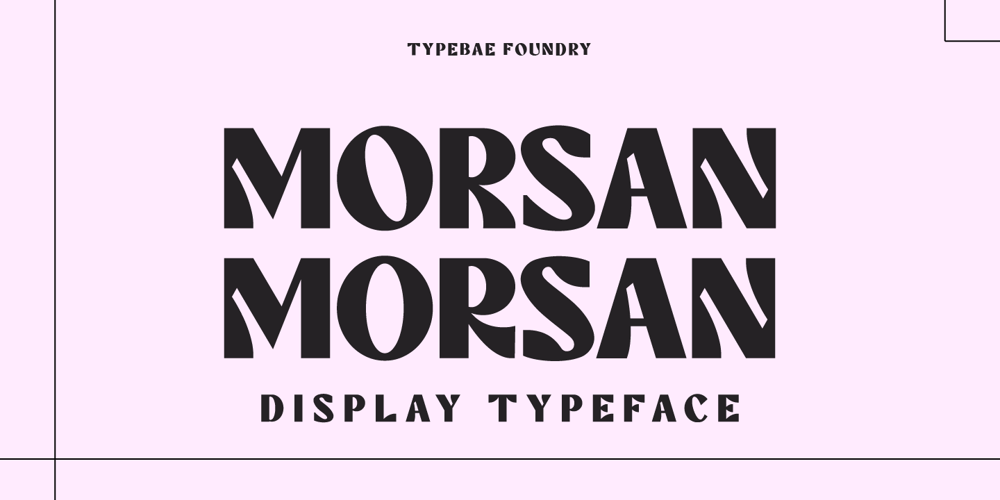
Morsan Font Family was designed by Iqbal Pauji and published by Typebae. Morsan contains 1 styles and family package options. Morsan is a psychedelic-inspired typeface that exudes retro charm, boldness, and playful vibes. Perfect for adding a dose of groovy excitement to any creative endeavor! Standard alphabet and punctuation Works on PC & Mac Simple installations PUA Encoded Characters – Fully accessible without additional design software. Multilingual Support